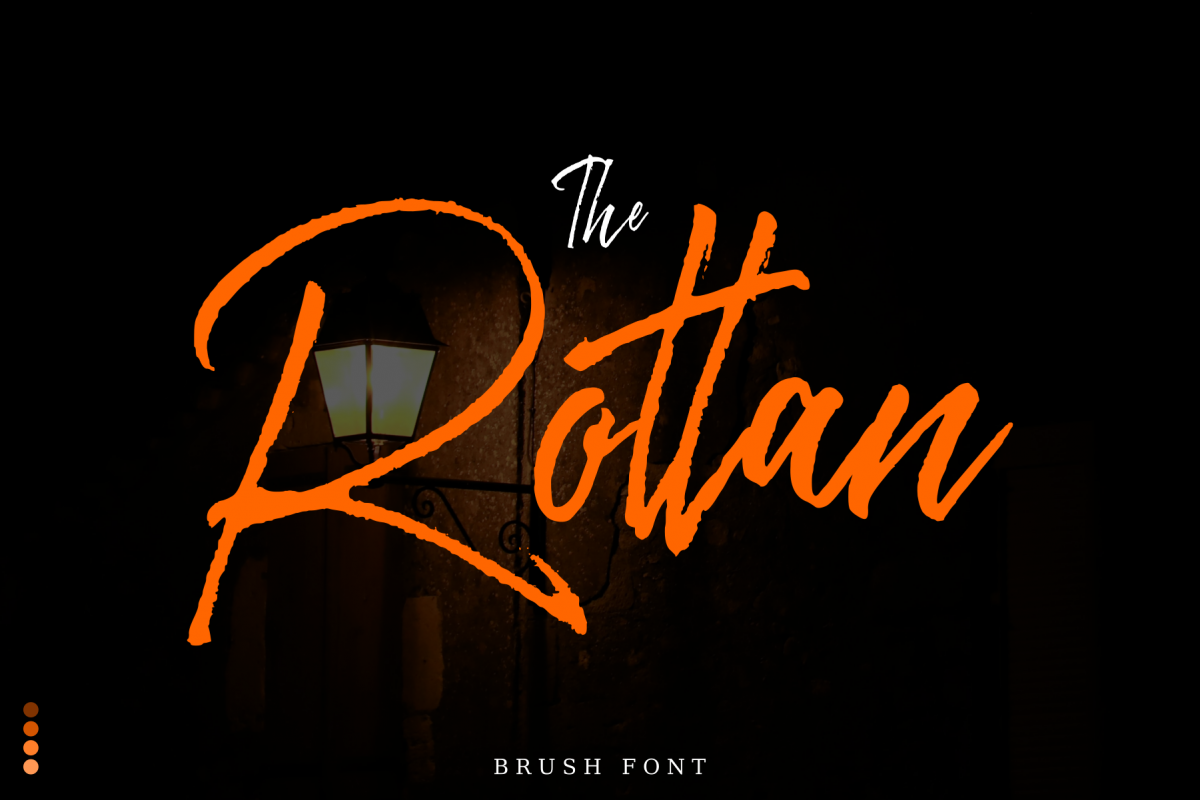
Rottan
Introducing: Rottan! A rustic, dapper handwritten font with a personal charm. With quick dry strokes and a signature style. You can activate Ligature and Alternates in the OpenType panel to make these two styles. Rottan perfect for homeware designs, branding projects, logo design, Quotes product packaging - or simply as a stylish text overlay to any background image.